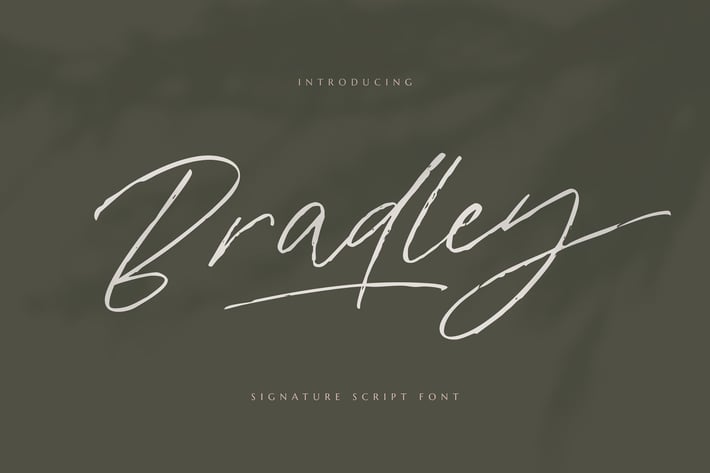
Signature Script Font
Bradley is a natural signature handwritten script, classic look, and versatile style. Its beautiful lines and natural details make it perfect for signatures, magazines, headlines, websites, packaging, wedding cards, and much more!
Alternates & Ligatures.
Numerals & Punctuation.